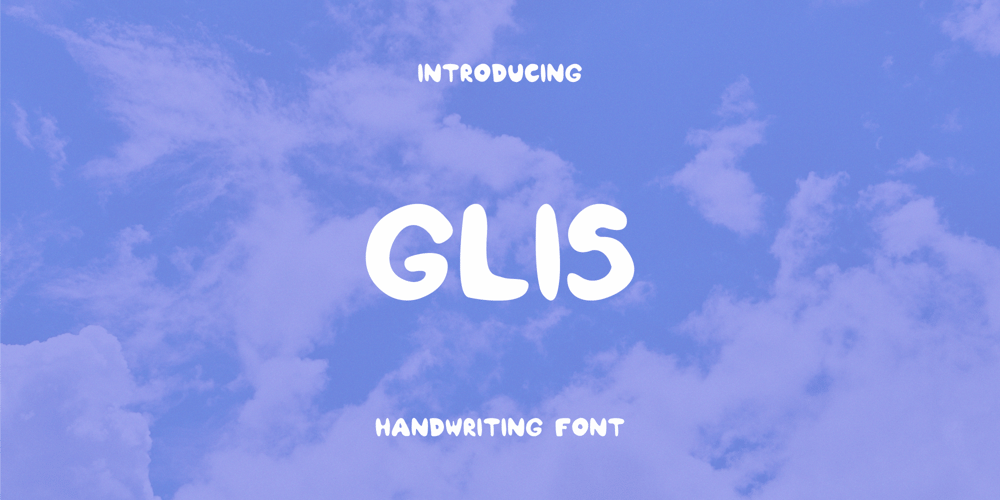
Glis Font Family was designed by Bianca Souza and published by BXS Type. Glis contains 1 styles and family package options. The Glis font is a unique expression of authenticity, meticulously hand-drawn to bring a touch of charming personality to your designs.With rounded and slightly irregular strokes, Glis is more than just typography; It’s a visual experience that adds artisanal charm and a sense of warmth to your creations.Each character is carefully designed to convey a relaxed and welcoming aesthetic, providing a visually captivating approach to your typographic compositions.Try Glis to infuse a dose of originality and softness into your designs.**Uppercase